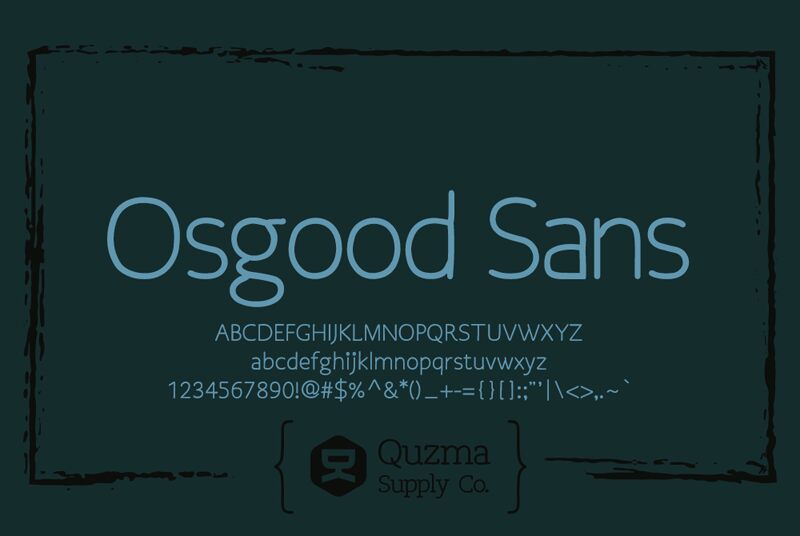
Osgood Sans is a captivating sans-serif font designed by Quzma Supply Co. Its light weight and clean lines create a distinctly modern and sophisticated aesthetic. The unique circular forms of the letters, particularly the "O" and "G," lend a sense of fluidity and approachability to the typeface. Osgood Sans' versatility makes it a suitable choice for a wide range of design applications, from editorial layouts to branding and digital interfaces.
Its seamless legibility and elegant simplicity make it a compelling option for designers seeking to convey a refined and contemporary visual identity.
Osgood Sans - handdrawn sans serif font